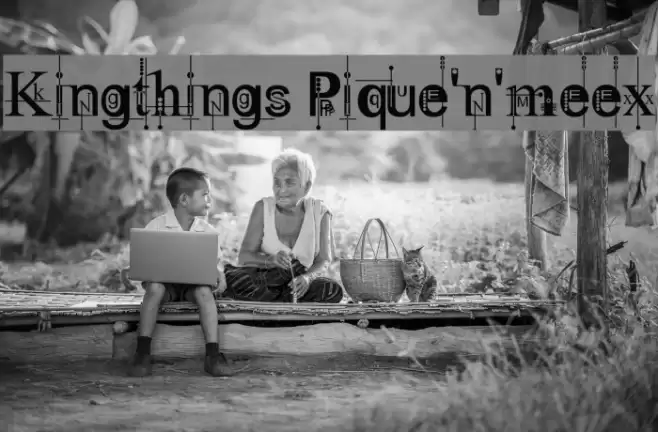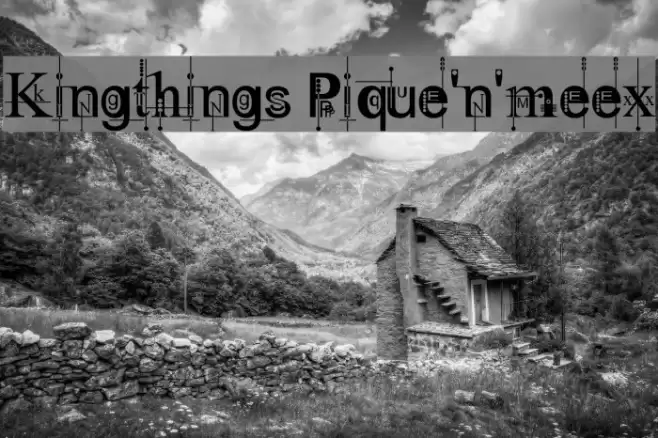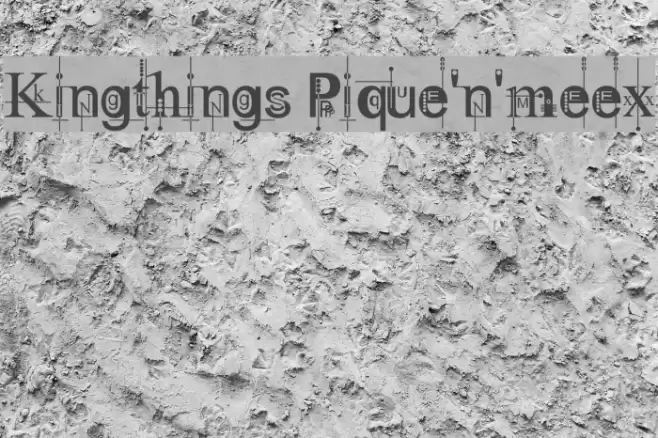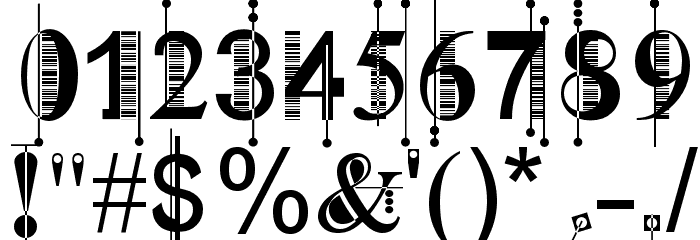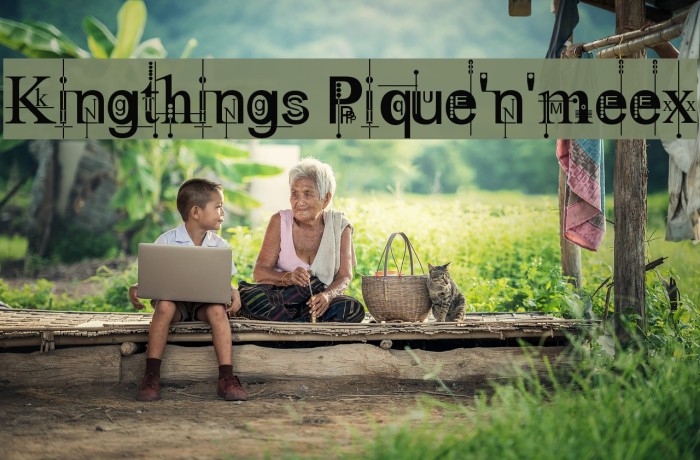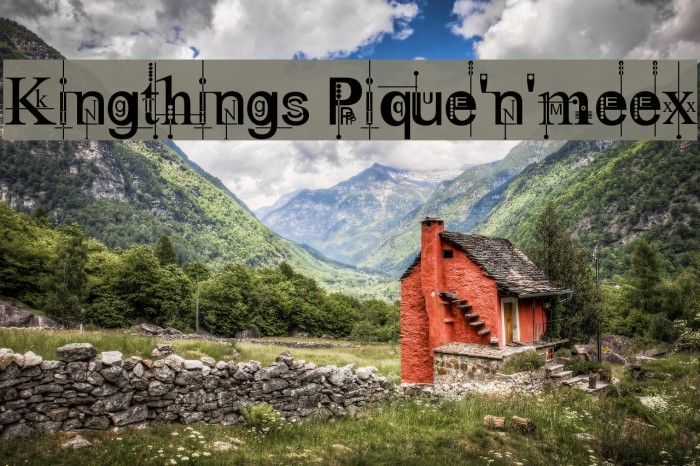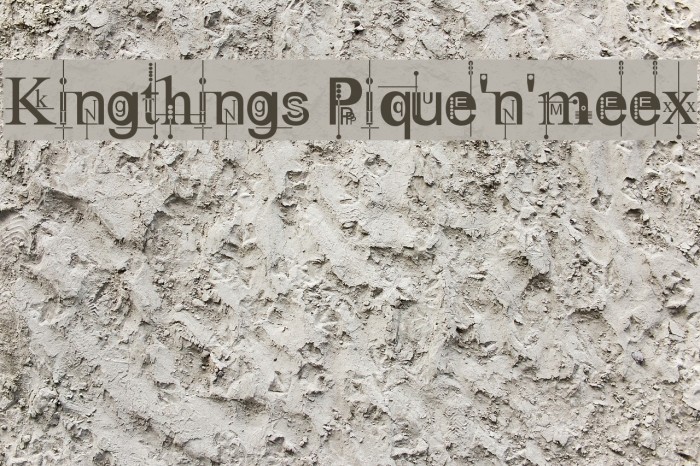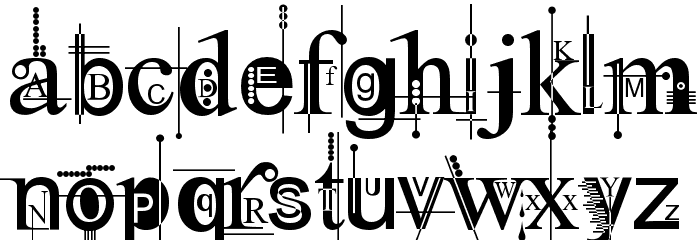
Kingthings Pique'n'meex Font
Kingthings Pique'n'meex Description
This font is a highly decorative and artistic typeface that features intricate details and embellishments. Each character is adorned with unique patterns, including dots, lines, and geometric shapes, giving it a whimsical and playful appearance. The uppercase and lowercase letters maintain a consistent style, with bold strokes and elaborate designs that make each letter stand out. The numbers and special characters are equally ornate, ensuring a cohesive look across all glyphs. This font is perfect for projects that require a touch of creativity and flair, such as invitations, posters, and artistic branding.
A decorative and artistic font with intricate patterns and embellishments from Decorative fonts.
- Proposed Projects: Ideal for invitations, posters, artistic branding, and creative projects.